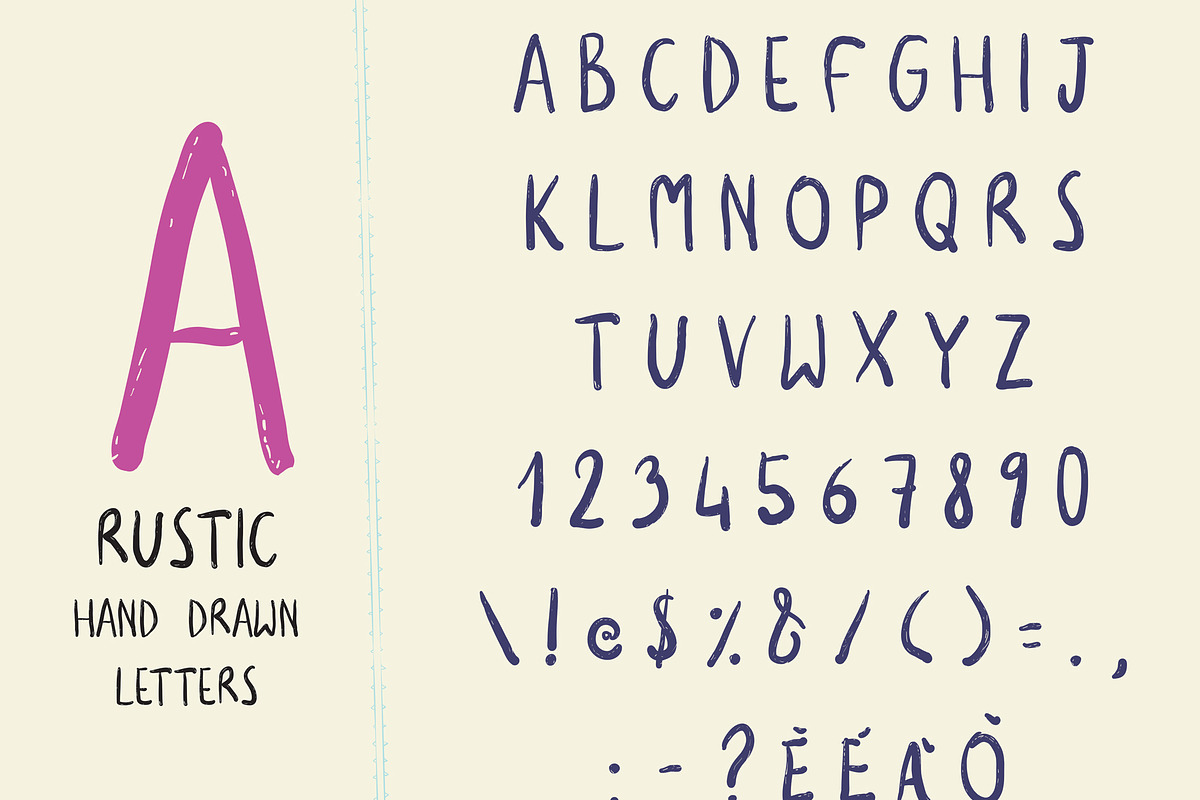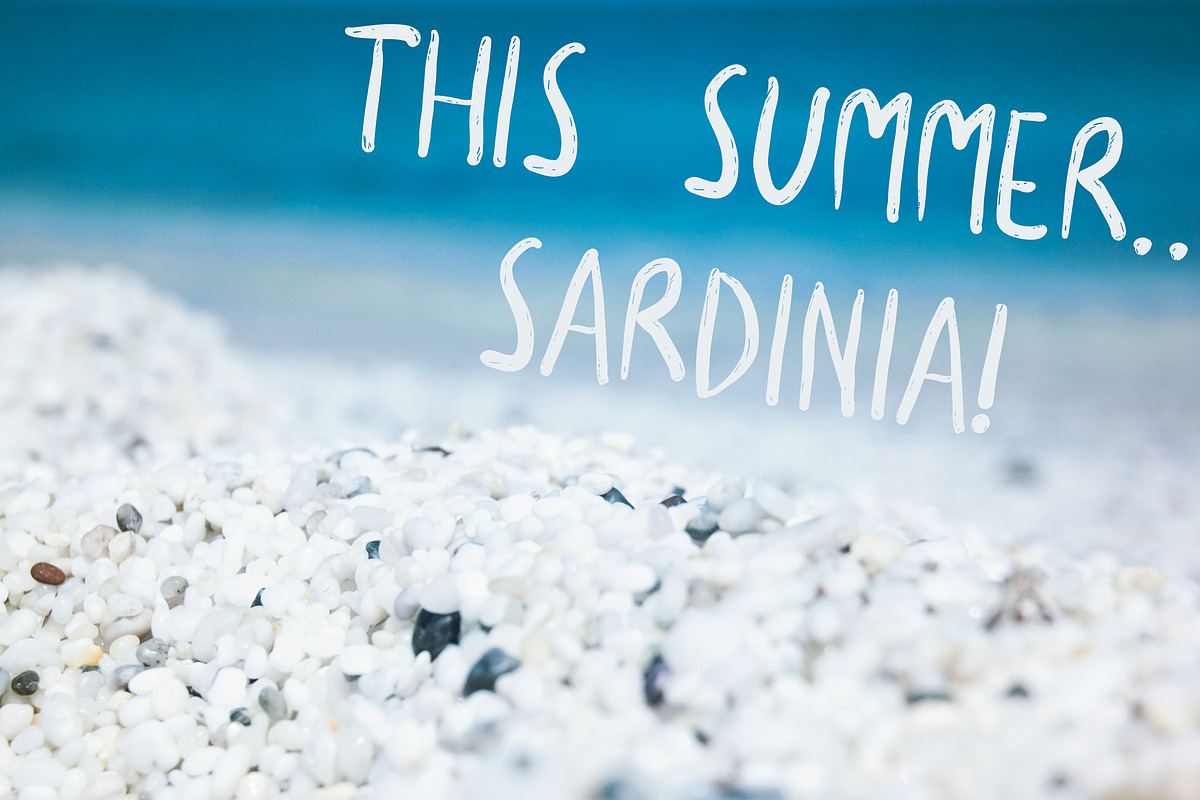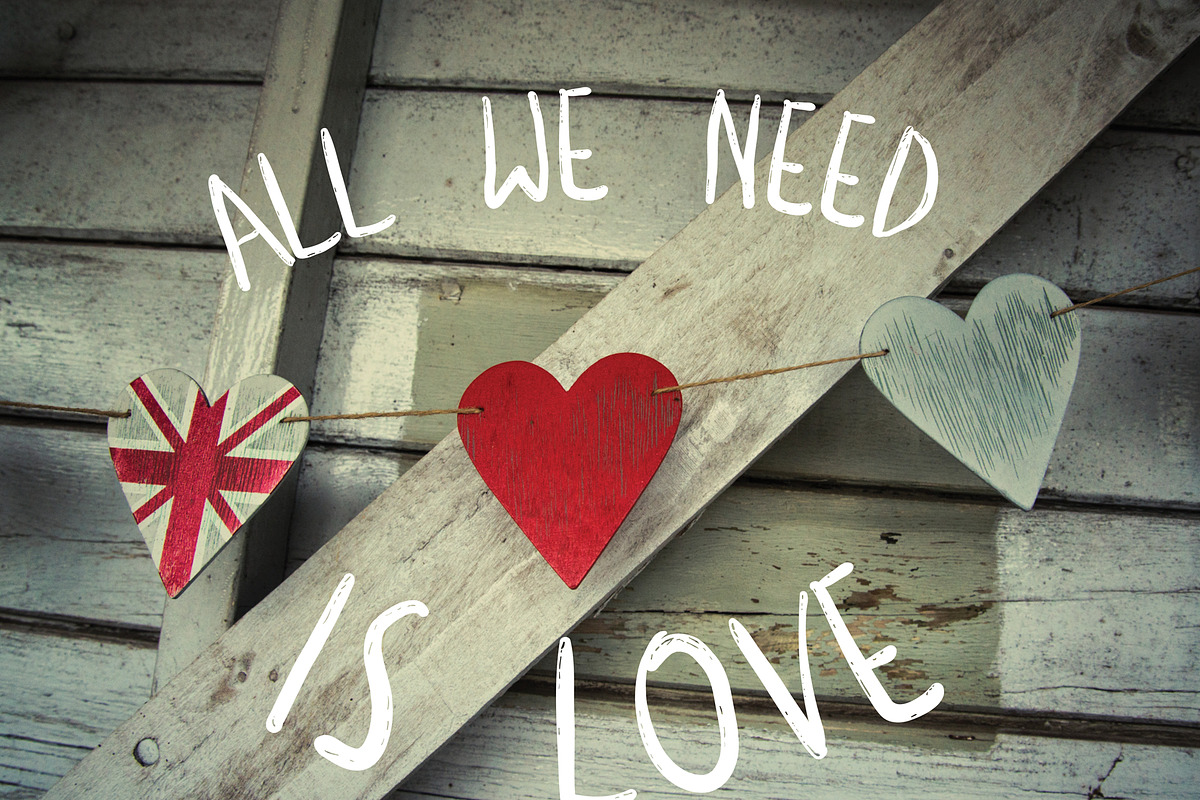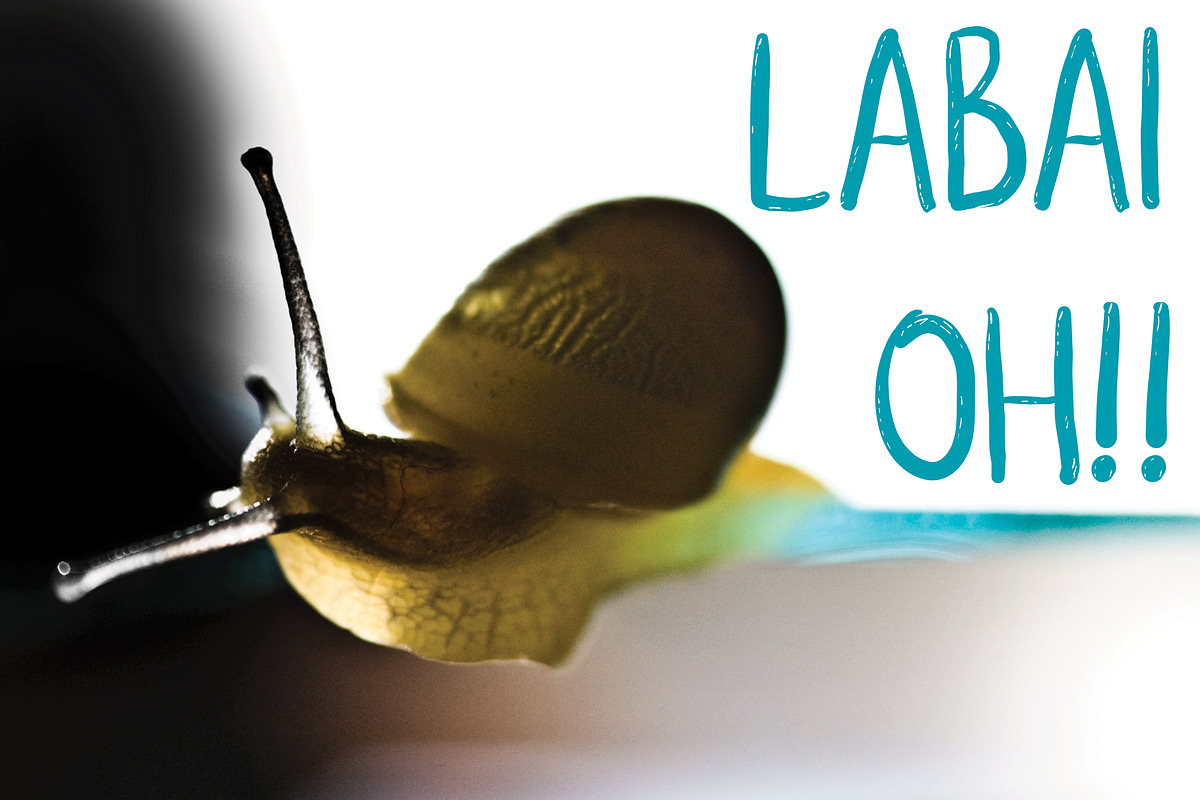
Labai font
Labai font by PATCHPO is a font selected for branding, posters, packaging, typography.
Why Labai font is worth a look
Labai font by PATCHPO fits naturally into Branding, posters, packaging, typography.